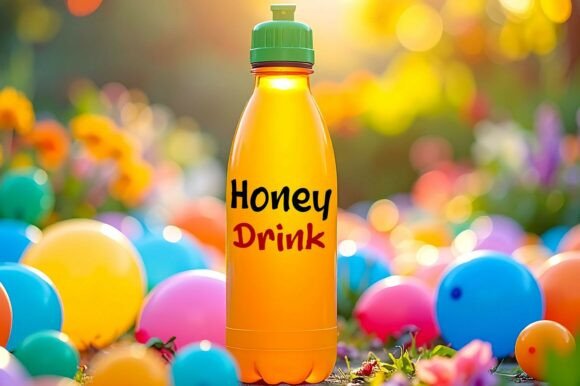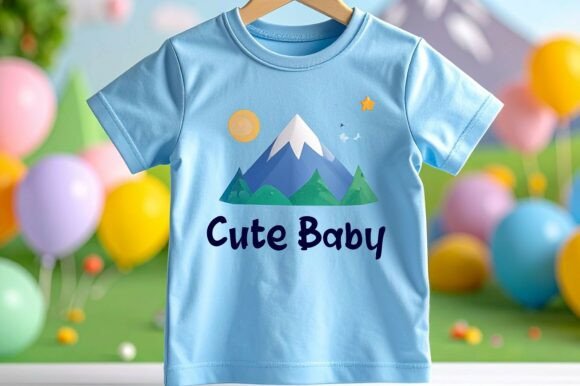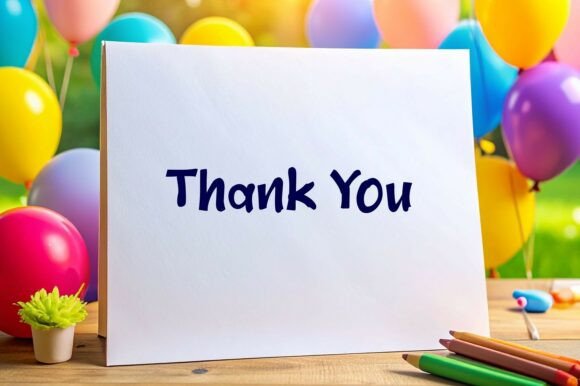
Adding a Splash of Joy to Your Designs
Who hasn’t experienced that moment when a burst of creativity strikes, and you envision the perfect font to bring your project to life? For many designers, that moment comes when they stumble upon the Anggota Font, a playful and bubbly typeface that’s sure to add a touch of whimsy to any design.
Characterized by its soft, rounded edges and subtle irregularities, the Anggota Font is a masterclass in balancing simplicity with personality. Its friendly and approachable nature makes it a go-to choice for projects that aim to convey joy, fun, and a lighthearted mood. Whether you’re designing children’s products, party invitations, or casual branding, the Anggota Font is an excellent choice for adding a splash of happiness and informal charm.
For designers, the Anggota Font is a valuable asset, offering a unique blend of clarity and character that’s sure to elevate any creative endeavor.
Key Features of Anggota Font
- Font Family: Anggota Font is a unique, hand-drawn font family that includes various styles and weights.
- Size and Resolution: Optimized for high-resolution displays at 300 DPI, ensuring crisp and clear typography at any zoom level.
- Unique Characteristics: Anggota Font features intricate details, elegant curves, and a touch of vintage charm, making it perfect for creative and artistic projects.
- Font Weight and Style Options: Includes various weights, from Light to Bold, and styles, such as Regular, Italic, and Bold Italic, offering flexibility for different design needs.
Anggota Font Review
First impressions count, and Anggota Font’s quirky aesthetic immediately caught my eye ✨. The font’s unique blend of traditional and modern elements makes it a great choice for those looking to add some personality to their designs. I particularly appreciate the font’s ability to adapt to various font sizes and styles without losing its charm.
One of the standout features of Anggota Font is its excellent legibility ✨. The font’s clear lines and well-spaced characters make it easy to read, even at smaller font sizes. This makes it a great choice for body text, headings, and other large blocks of text.
While Anggota Font has many strengths, there are a few areas where it falls short ⚠️. For one, the font’s character set is somewhat limited, which may make it less suitable for certain types of projects. Additionally, the font’s bold weight can sometimes feel a bit too heavy-handed, which may not be suitable for all design applications.
- Character set limitations may impact certain design projects
- Bold weight can be too heavy-handed in some cases
In conclusion, Anggota Font is a solid choice for designers looking to add some flair to their projects ✨. While it has its limitations, the font’s unique aesthetic and excellent legibility make it a great option for a wide range of design applications.
Tips for Getting the Most Out of Anggota Font
For optimal results, use Anggota Font in combination with other creative elements to create visually appealing designs. Experiment with different font sizes, colors, and styles to find the perfect balance for your project.